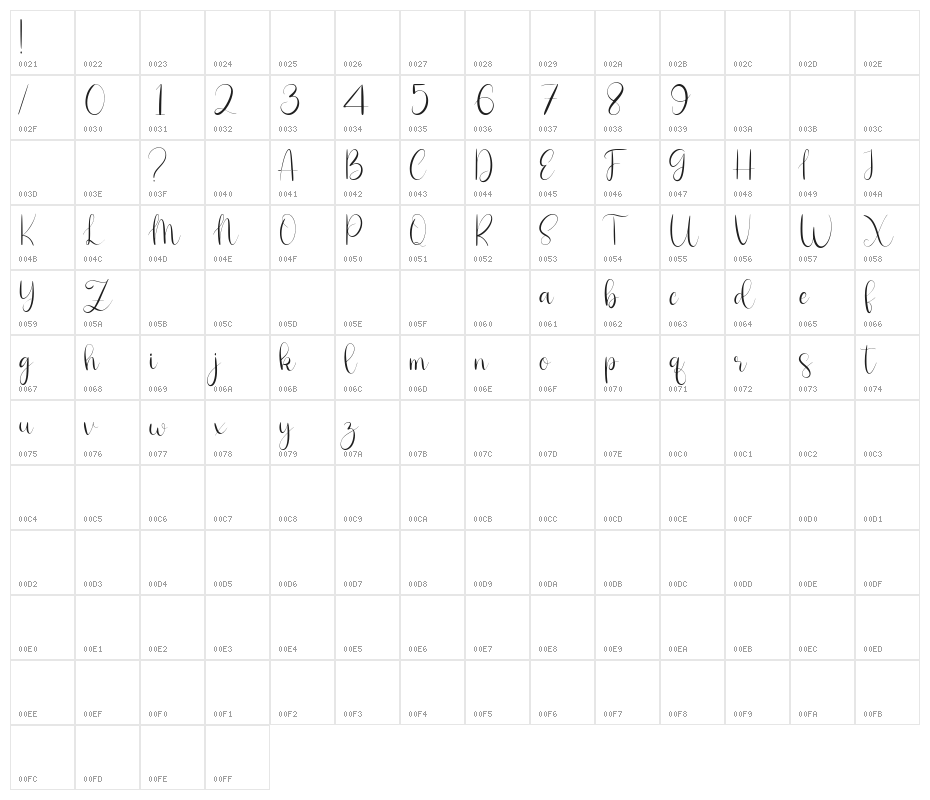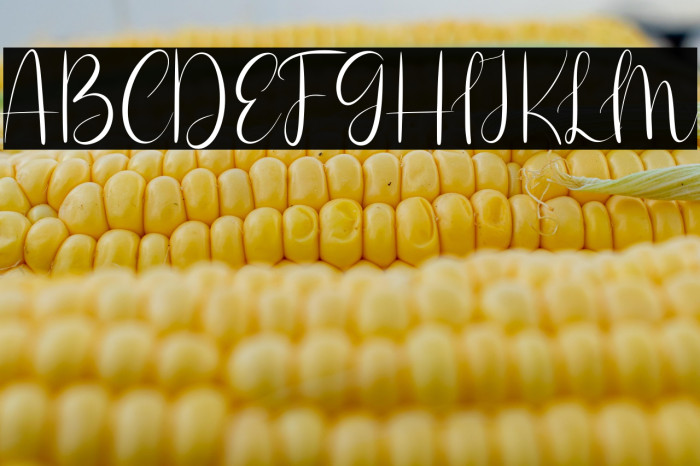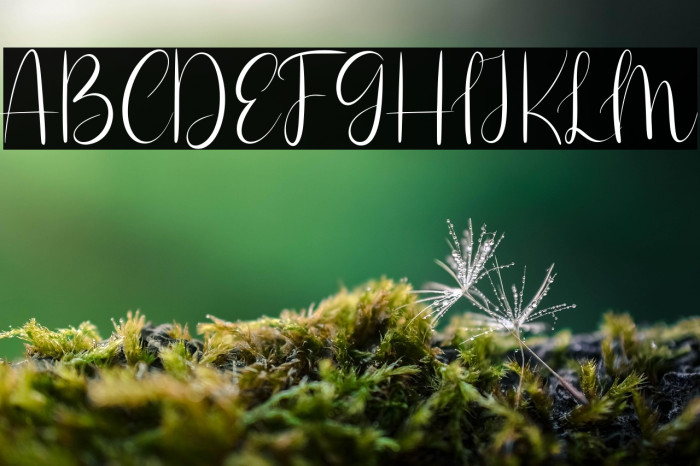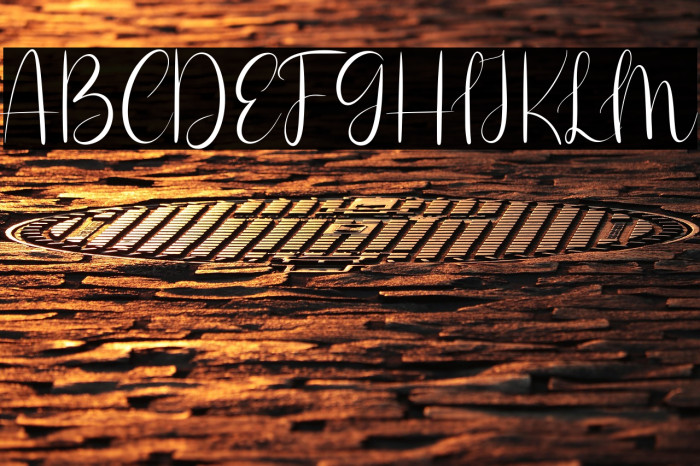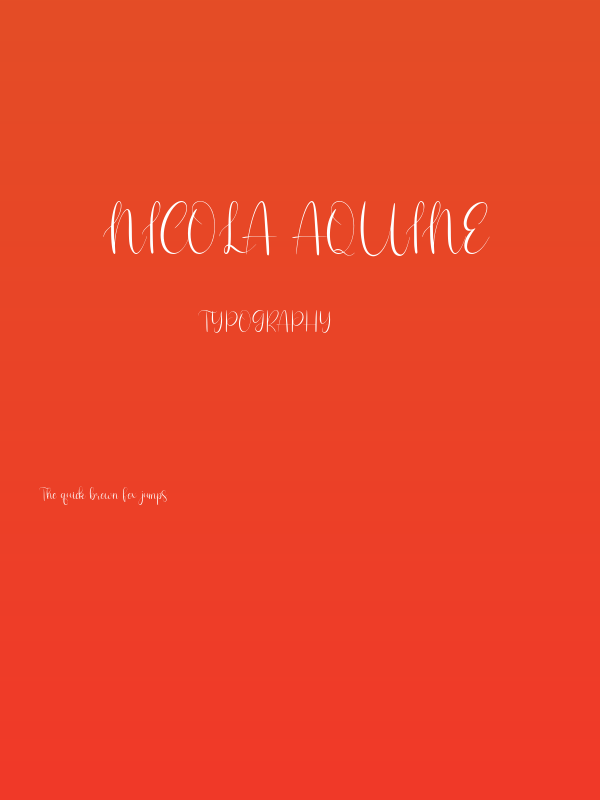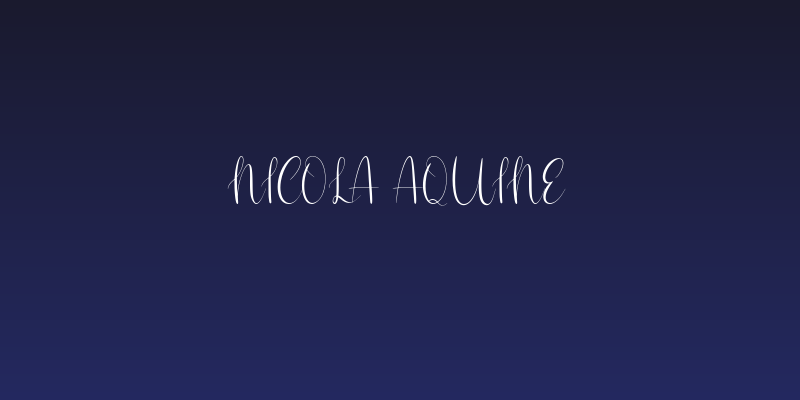
Nicola Aquine Font
Nicola Aquine Description
This elegant script font features a flowing, cursive style with high contrast between thick and thin strokes. The uppercase letters are tall and graceful, with sweeping curves and loops that give a sense of movement and fluidity. The lowercase letters maintain a consistent style, with rounded forms and delicate connections that enhance readability. The numerals are stylish and align well with the overall aesthetic, while the special characters add a touch of sophistication. This font is perfect for projects that require a touch of elegance and class.
| Overall Style | Elegant, Sophisticated |
| Proposed Projects | Ideal for wedding invitations, elegant branding, luxury product packaging, and sophisticated event posters. |